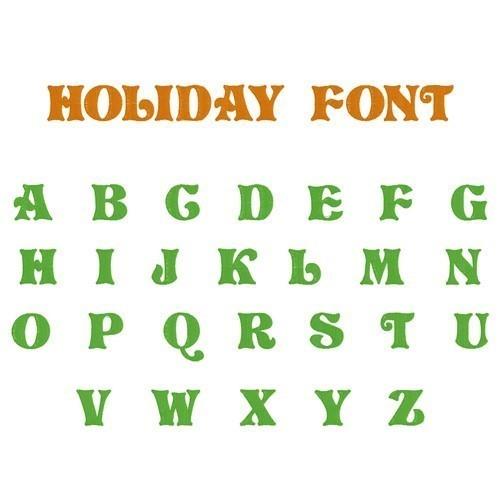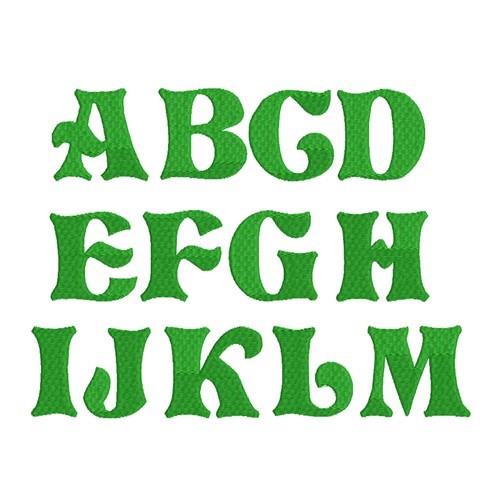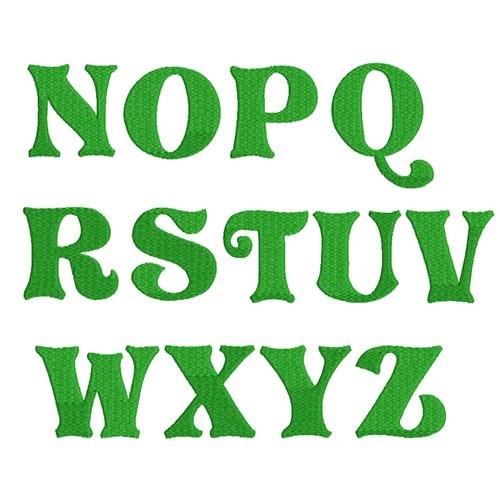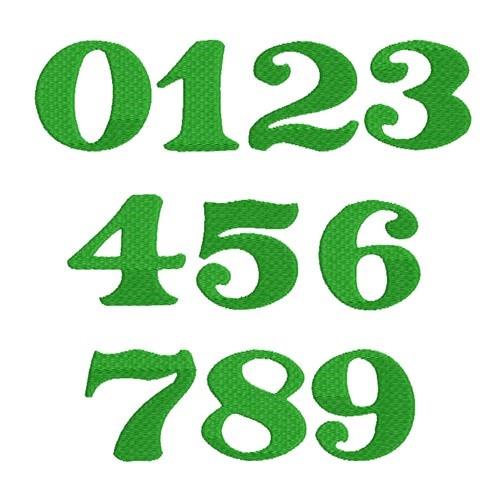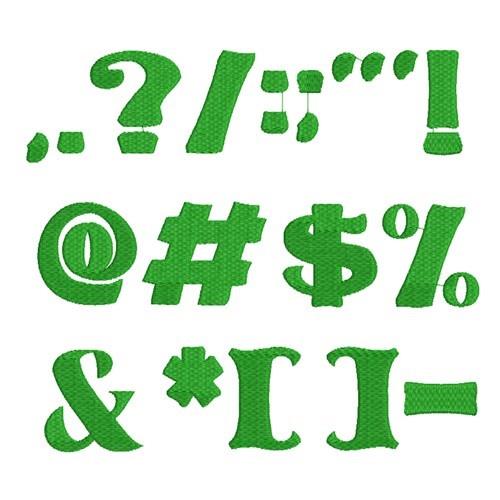
Holiday - 11 Sizes Included Embrilliance Embroidery Font - Whimsical Holiday Decorative Style - 11 Sizes - BX font by Maya Kreations and other embroidery fonts available at EmbroideryDesigns.com.
Maya Kreations is happy to present Holiday - 11 Sizes Included Embrilliance Embroidery Font - Whimsical Holiday Decorative Style - 11 Sizes - BX font machine embroidery font which has This holiday decorative machine embroidery font features bold green letters, perfect for festive projects on table runners and gift bags. Available in BX font and Embrilliance formats with 11 sizes: from 0.5 to 8. included. If you would like to view more embroidery fonts and alphabets please search our embroidery fonts page.
Holiday - 11 Sizes Included Embrilliance Embroidery Font - Whimsical Holiday Decorative Style - 11 Sizes - BX font